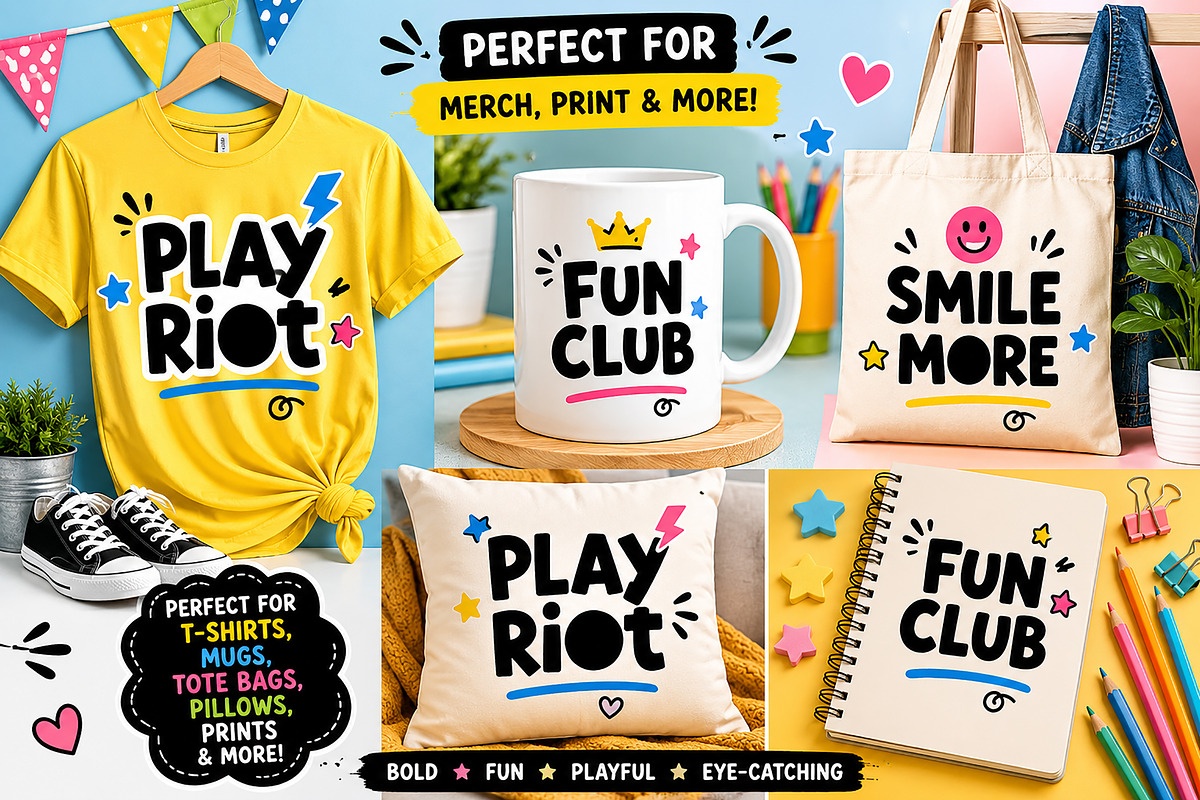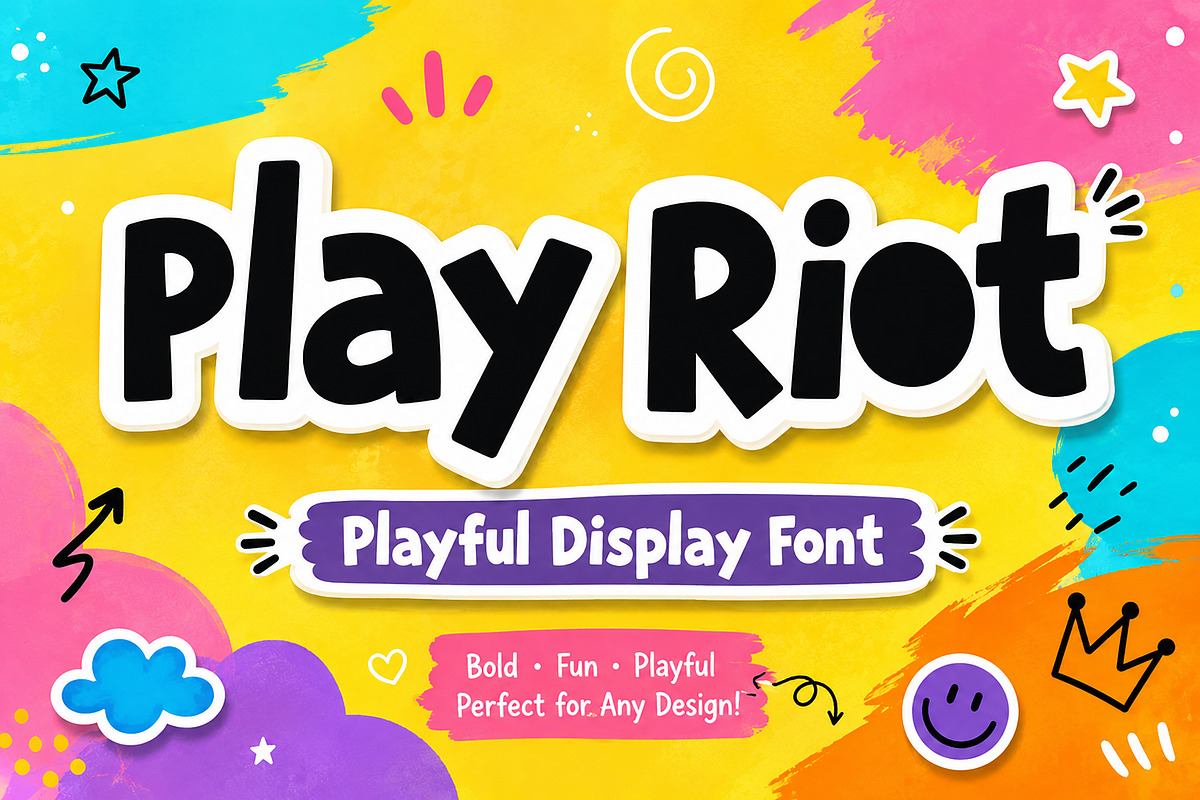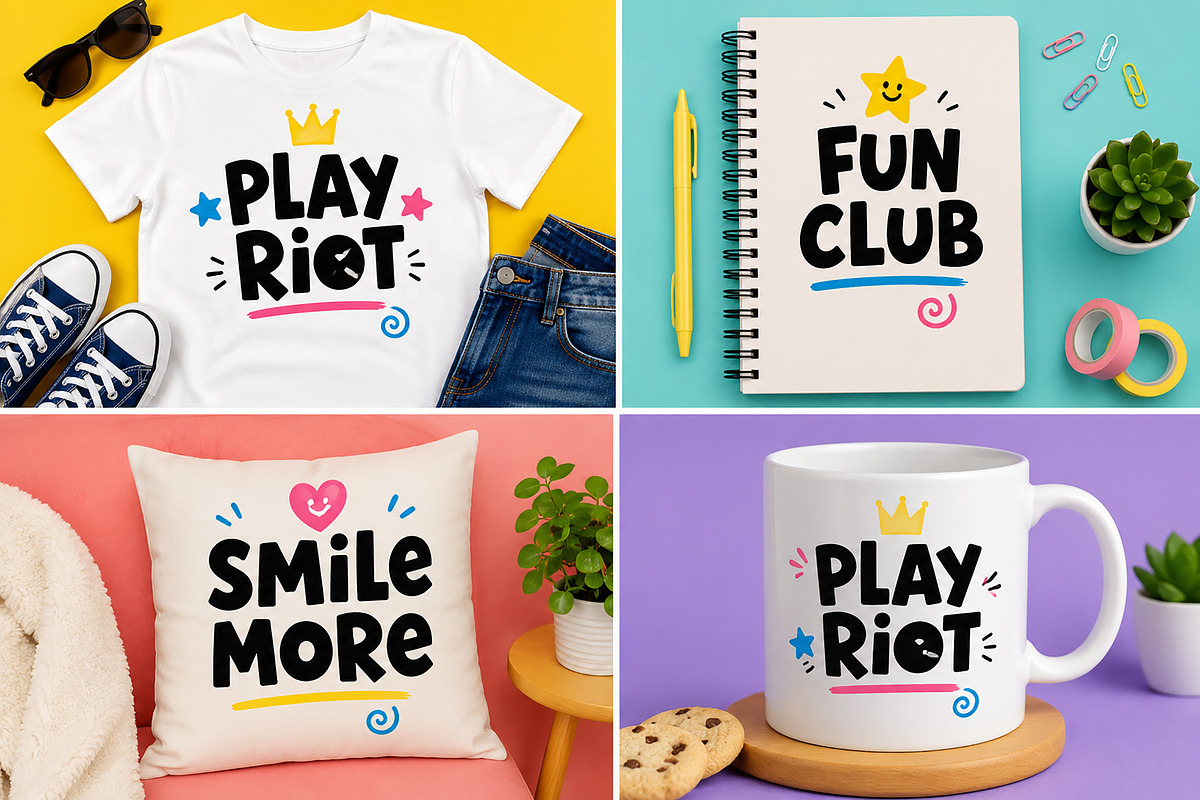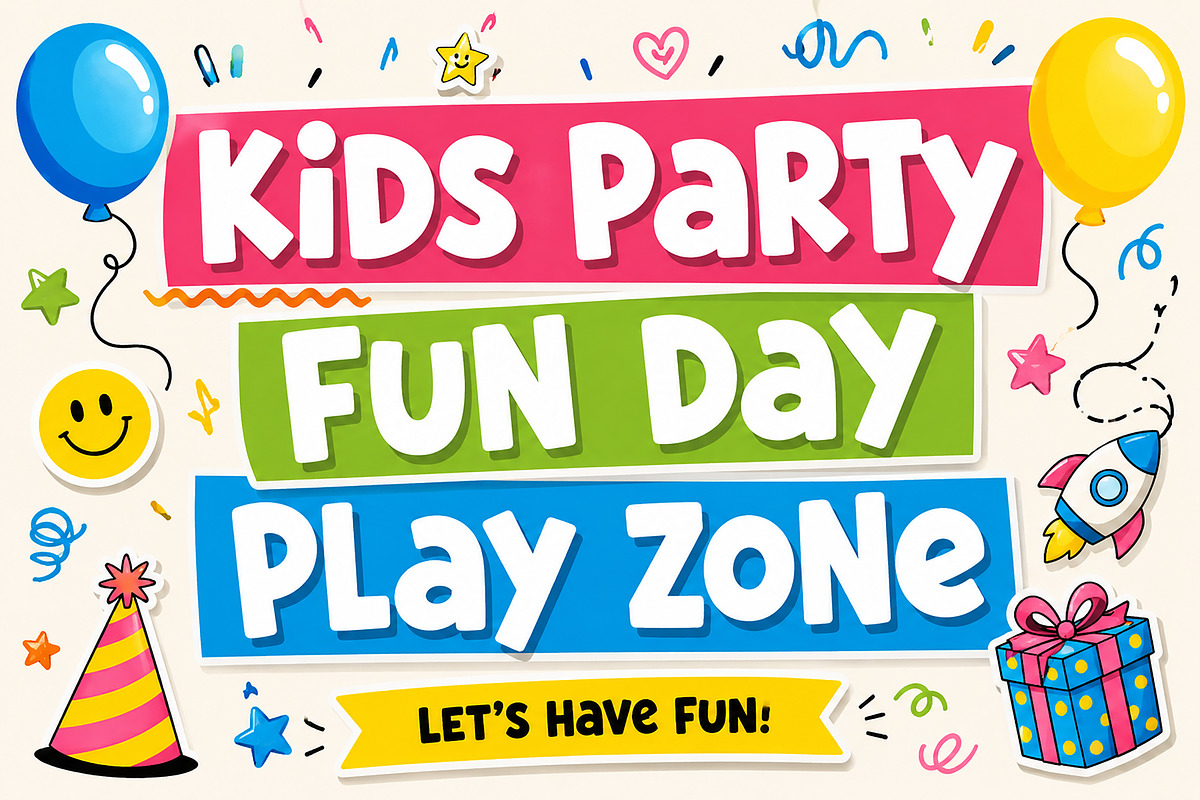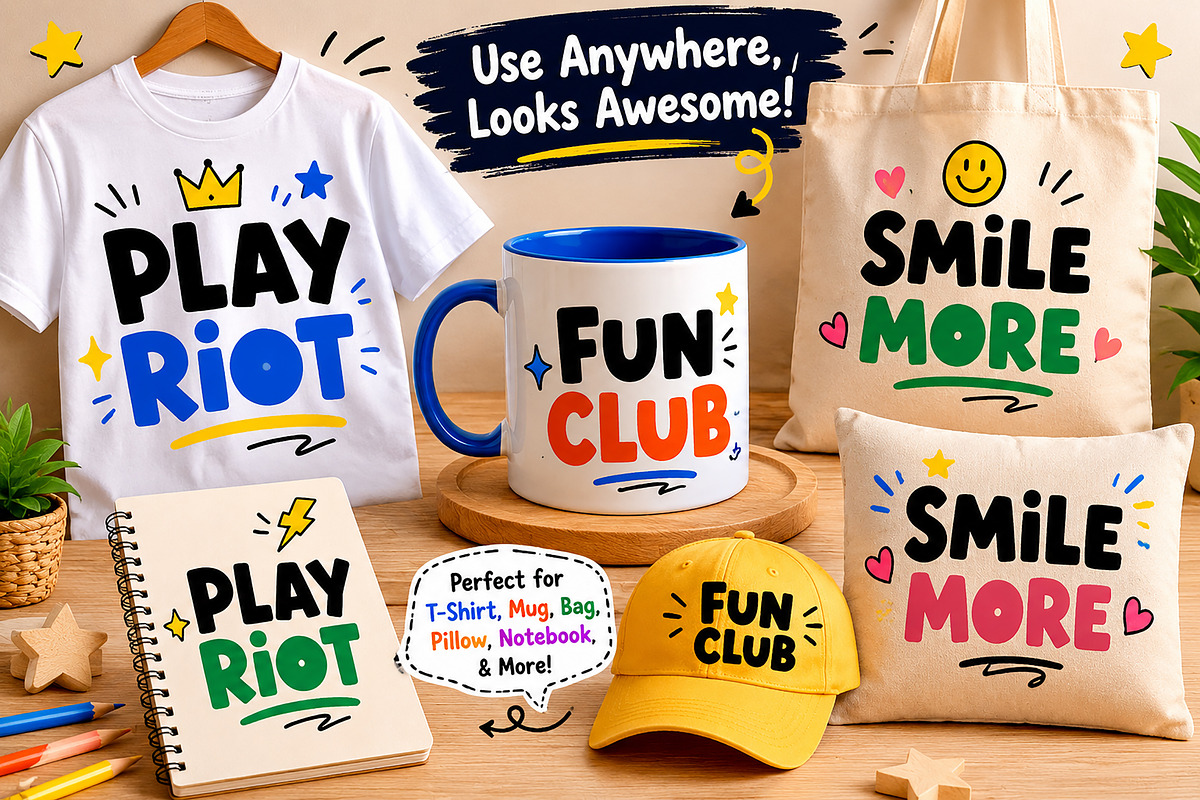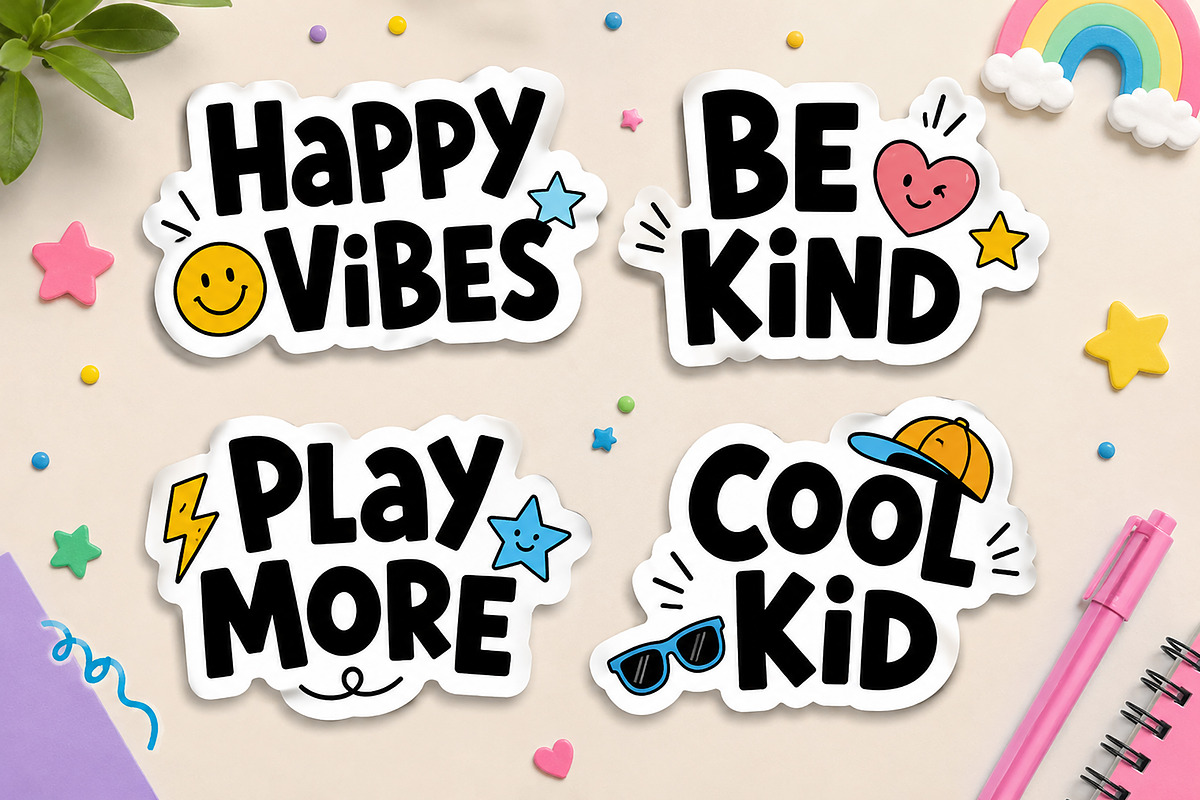
Play Riot
Play Riot – Playful Display Font
Play Riot is a fun, bold, and energetic display font designed to bring joy and creativity to your projects. With its chunky letterforms, playful personality, and friendly cartoon-inspired style, this font is perfect for designs that need a cheerful and eye-catching look.
Whether you're creating kids' products, stickers, party invitations, classroom materials, Cricut crafts, social media graphics, or playful branding, Play Riot adds a vibrant and exciting touch that instantly grabs attention.
Its bold shapes and easy readability make it ideal for both print and digital projects, helping your designs stand out while maintaining a fun and approachable feel.
Kids Branding
Birthday Party Invitations
School Projects
Classroom Posters
Cricut & Silhouette Crafts
Stickers & Labels
T-Shirt Designs
Mug Designs
Tote Bags
Printable Quotes
YouTube Thumbnails
Children's Books
Playful Logos
Fun & Playful Style
Bring happiness, creativity, and playful energy to your next project with Play Riot!